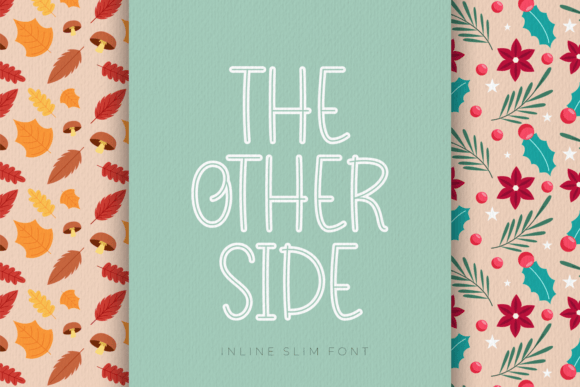
Indulge in an extraordinary typographic journey with The Other Side Font! This captivating display font captivates with its slender lines and a dash of whimsy, leaving an unforgettable mark on your digital creations.
Unleash your creativity with The Other Side, a font meticulously crafted to enhance the smallest of details. Its petite frame dances across the page, imbuing your messages with a touch of playful sophistication.
Imagine the allure of invitations adorned with The Other Side's graceful curves, or thank you cards exuding a heartfelt charm. Its versatility knows no bounds, extending to quotes that whisper with elegance, greeting cards that radiate warmth, and logos that demand attention.
Whether you're a seasoned designer or a budding enthusiast, The Other Side grants you the power to transform ordinary words into captivating works of art. Embrace its enigmatic charm and watch your creations soar to new heights.